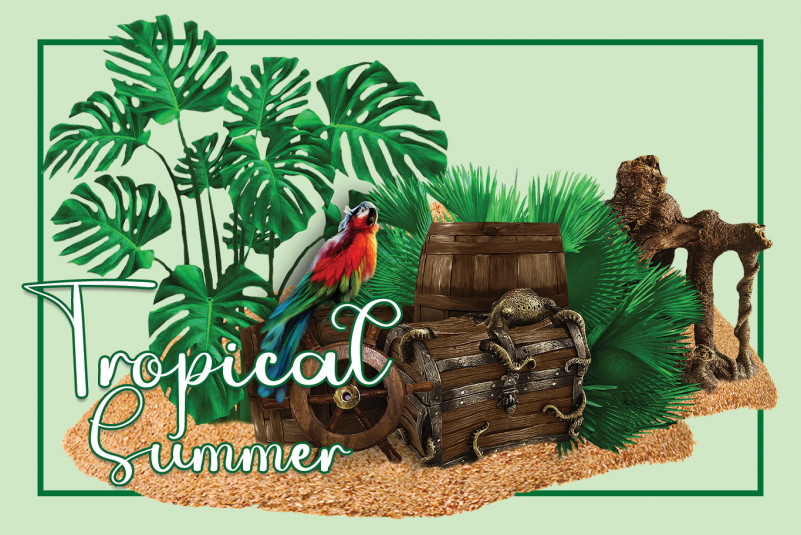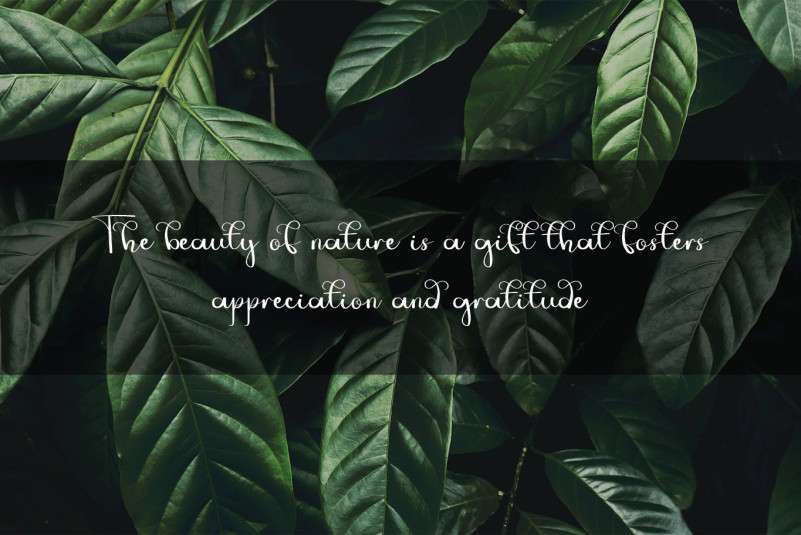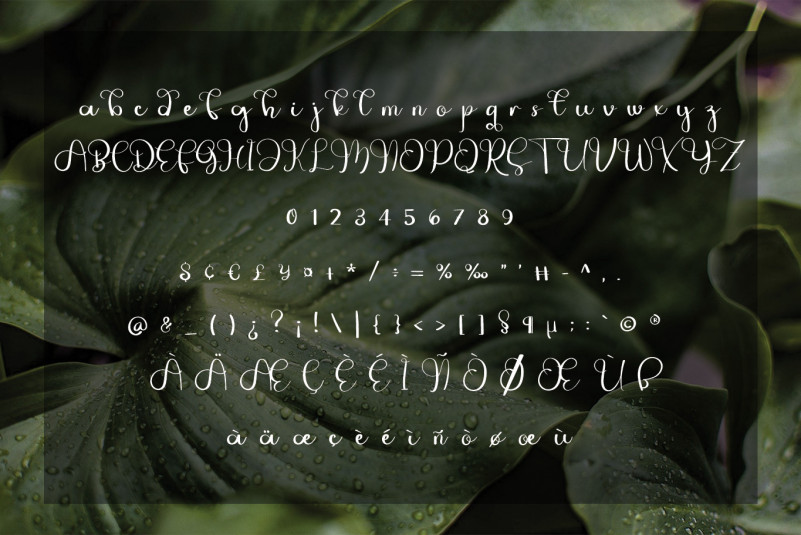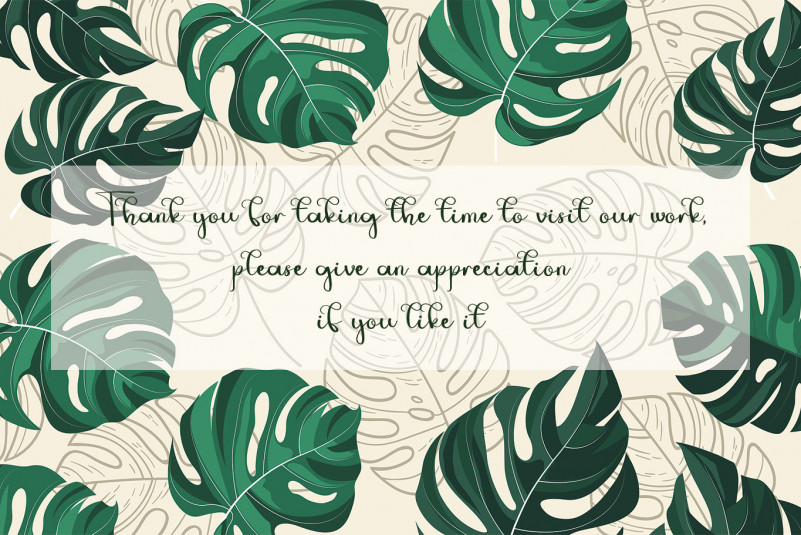
Jungle Font
Jungle Calligraphy Font
This is a lovely script font. This font is neatly crafted and highly detailed. Whatever the topic, this font will be a wonderful asset to your font library, as it has the potential to enhance any creation.